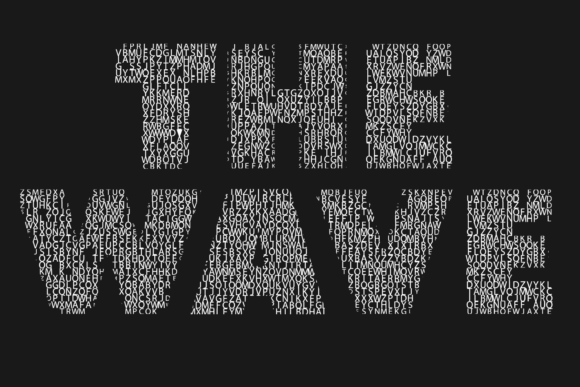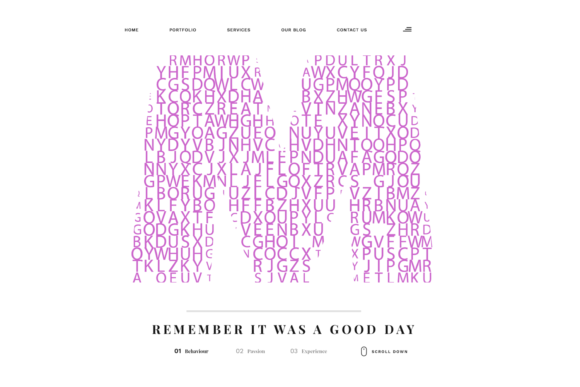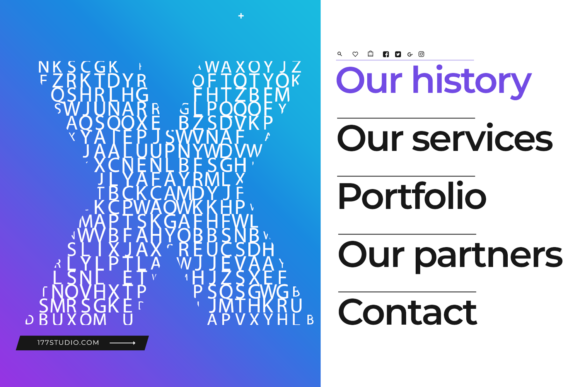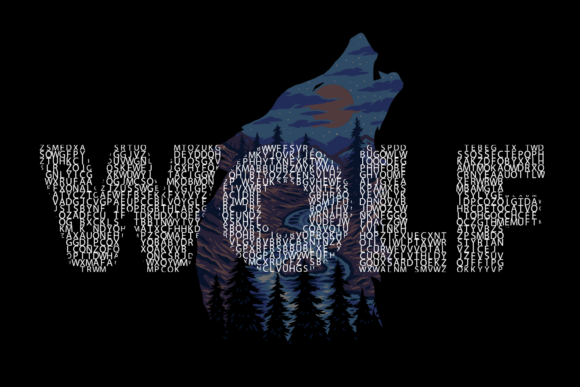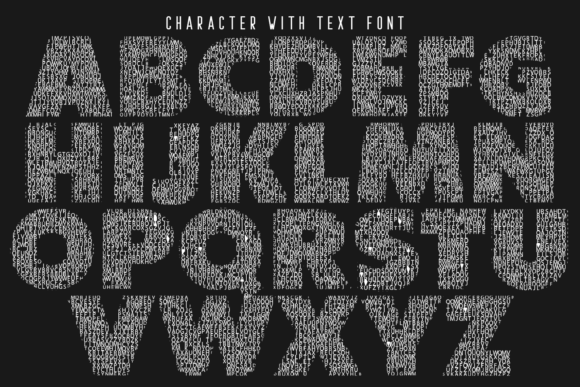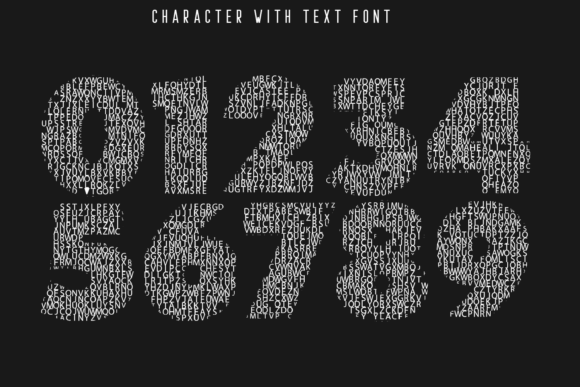
Unleash Your Creativity with Character with Text Font
Are you tired of using the same old fonts in your designs? Look no further! Character with Text Font is an incredibly cool and unique display font that can elevate your designs to the next level. With its trendy and fun look, this font is perfect for adding a touch of personality to a variety of design ideas, both formal and casual.
What Makes Character with Text Font So Special?
Character with Text Font is a one-of-a-kind display font that boasts a distinctive style that sets it apart from other fonts. Its unique design makes it perfect for creating eye-catching headlines, titles, and captions that grab attention. Whether you’re working on a formal project, such as a corporate brochure, or a casual design, like a social media post, this font is sure to make a statement.
The versatility of Character with Text Font is one of its most appealing features. You can use it to create a wide range of designs, from:
- Eye-catching posters and flyers that showcase your products or services
- Stunning social media graphics that help you stand out in a crowded feed
- Creative logos and branding materials that reflect your unique identity
- Beautiful wedding invitations and other formal event materials
- Fun and playful party decorations that add a touch of whimsy to any celebration
Why Choose Character with Text Font?
So, why should you choose Character with Text Font for your next design project? Here are just a few reasons:
- Unique and distinctive style that sets you apart from the crowd
- Easy to read and understand, even at smaller font sizes
- Highly versatile and adaptable to a wide range of design projects
- Trendy and fun, with a youthful and energetic vibe
Tips for Using Character with Text Font
To get the most out of Character with Text Font, here are a few tips to keep in mind:
- Use it sparingly to create emphasis and draw attention to key elements
- Pair it with other fonts to create a unique and visually appealing combination
- Don’t be afraid to get creative and try out new and innovative design ideas
In conclusion, Character with Text Font is an incredibly cool and unique display font that can add a touch of personality and style to any design project. With its trendy and fun look, endless design possibilities, and versatility, this font is perfect for designers and crafters looking to unleash their creativity and take their designs to the next level. So why wait? Download Character with Text Font today and start creating amazing designs that stand out from the crowd!